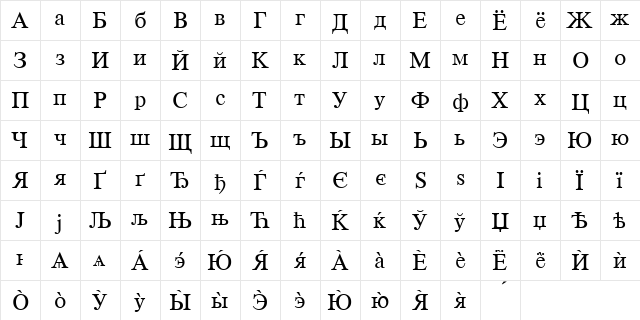
WPPR Cyrillic Normal
Design Context for WPPR Cyrillic Typeface
WPPR Cyrillic takes a measured approach to typography — its balanced proportions and neutral character make it a reliable workhorse for both digital and print work.